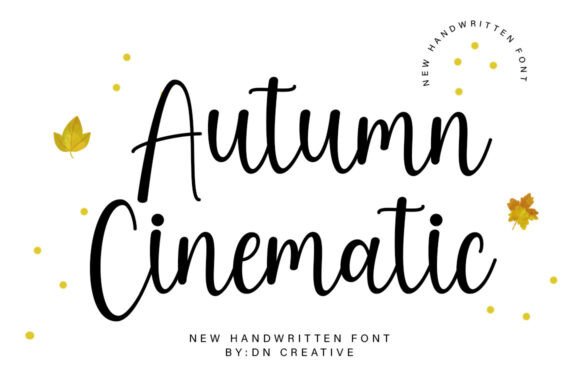
The Magic of Autumn Cinematic: A Font that Brings Elegance to Your Designs
I’ll never forget the time I was working on a wedding invitation project, and my client asked for a font that was elegant, yet personal. I scoured the internet, trying out font after font, but nothing seemed quite right. That was until I stumbled upon Autumn Cinematic, a stylish and incredibly elegant handwritten font that changed the game. In this article, I’ll share my experience with Autumn Cinematic, and show you how to make the most of this beautiful font.
An Honest Review of Autumn Cinematic
So, what makes Autumn Cinematic so special? Here are a few things I love about this font:
• ✨ Elegant and sophisticated: Autumn Cinematic has a luxurious feel that’s perfect for high-end designs.
• ✅ Highly versatile: This font works beautifully on wedding invitations, thank you cards, quotes, greeting cards, logos, business cards, and more.
• 💻 PUA encoded: With PUA encoding, you can access all the glyphs and alternates with ease, making it simple to customize your designs.
• 🤔 Limited multilingual support: While Autumn Cinematic is a beautiful font, it may not be the best choice for designs that require a wide range of languages.
• ⚠️ Occasional kerning issues: As with any font, you may need to adjust the kerning to get the perfect look.
The Story Behind Autumn Cinematic
Autumn Cinematic was designed with the intention of creating a font that was both elegant and personal. The designer wanted to create a font that would evoke the feeling of a handwritten letter or a personal note. With its beautiful, flowing lines and elegant curves, Autumn Cinematic is the perfect choice for designs that need a touch of sophistication.
Q: What is Autumn Cinematic? Autumn Cinematic is a stylish and incredibly elegant handwritten font.
Q: What is PUA encoding? PUA (Private Use Area) encoding allows you to access all the glyphs and alternates in a font, making it easy to customize your designs.
Q: Is Autumn Cinematic suitable for multilingual designs? While Autumn Cinematic is a beautiful font, it may not be the best choice for designs that require a wide range of languages.